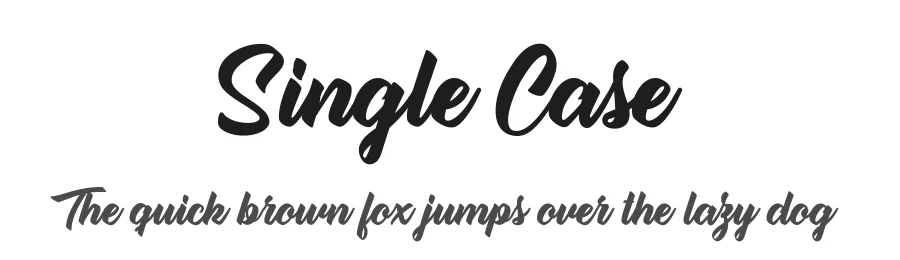
About Thinking Of Betty Font
Thinking Of Betty Font is a script font that shines as a display or heading face. Pair it with a clean sans-serif or serif font for body text — the contrast creates a clear hierarchy while the two styles stay balanced and easy to read.
Thinking Of Betty Font